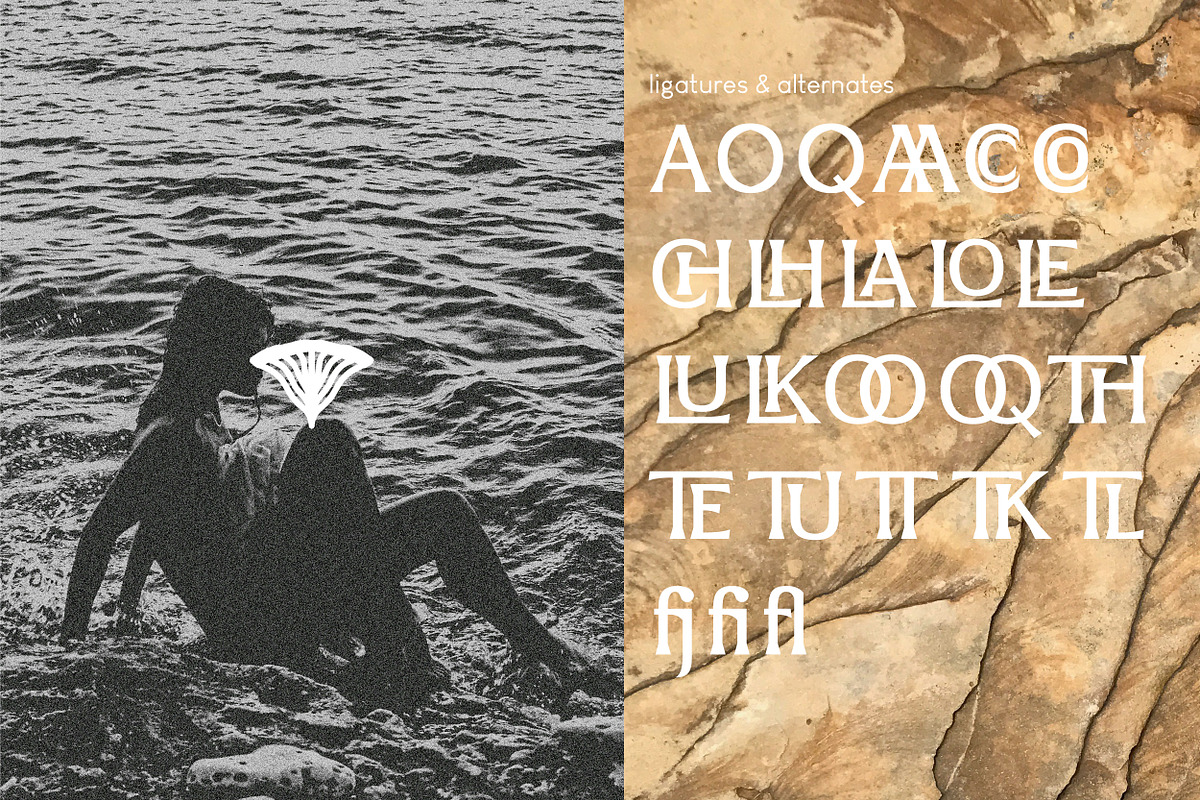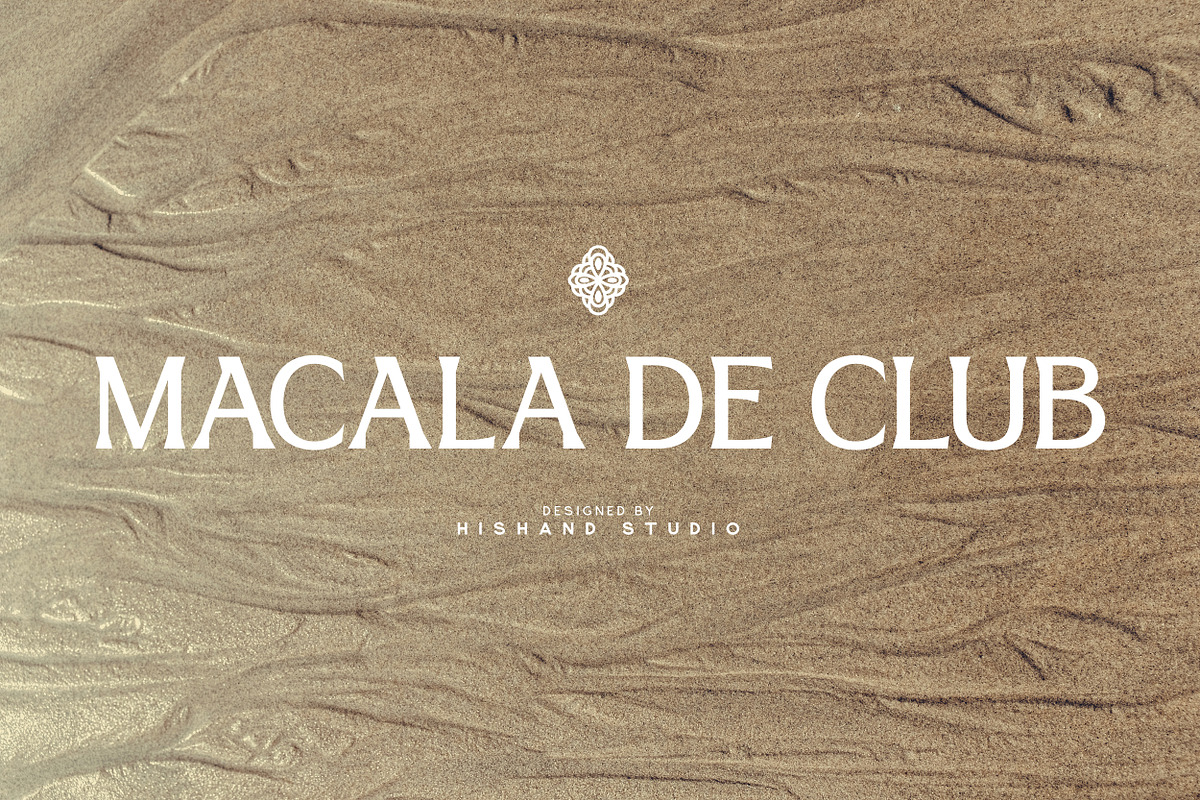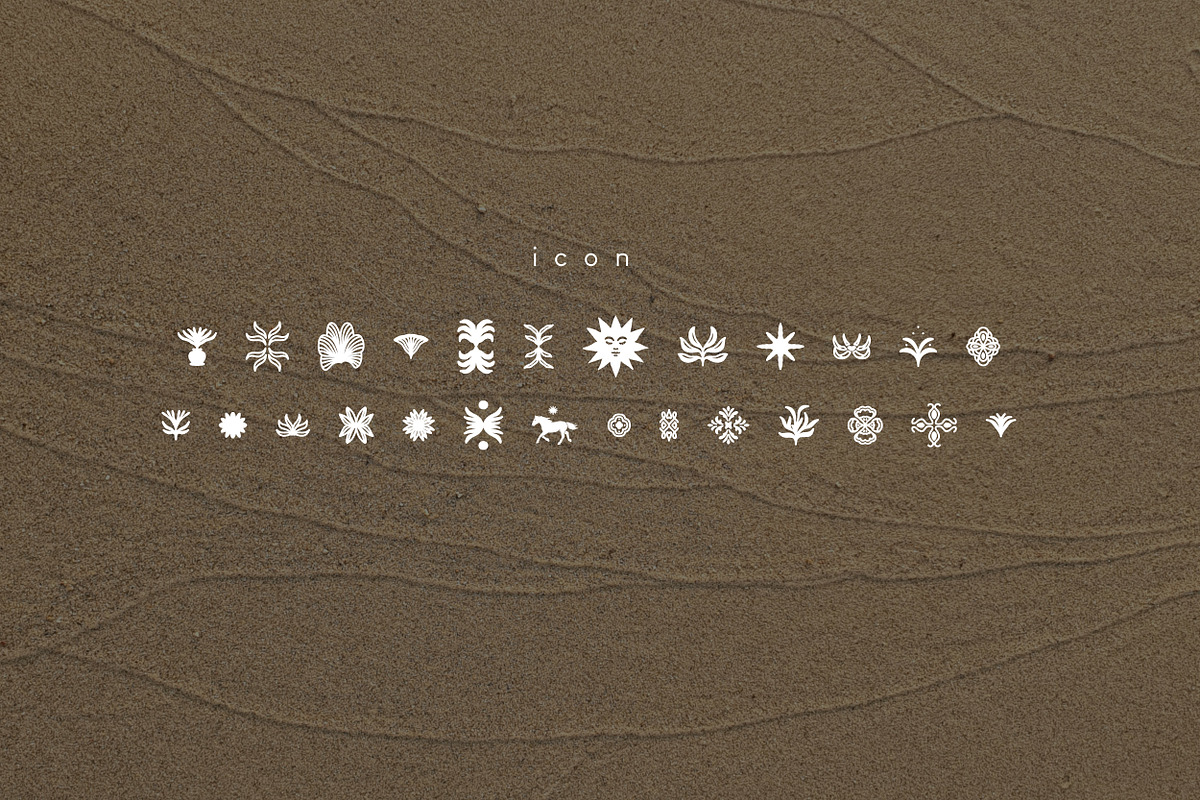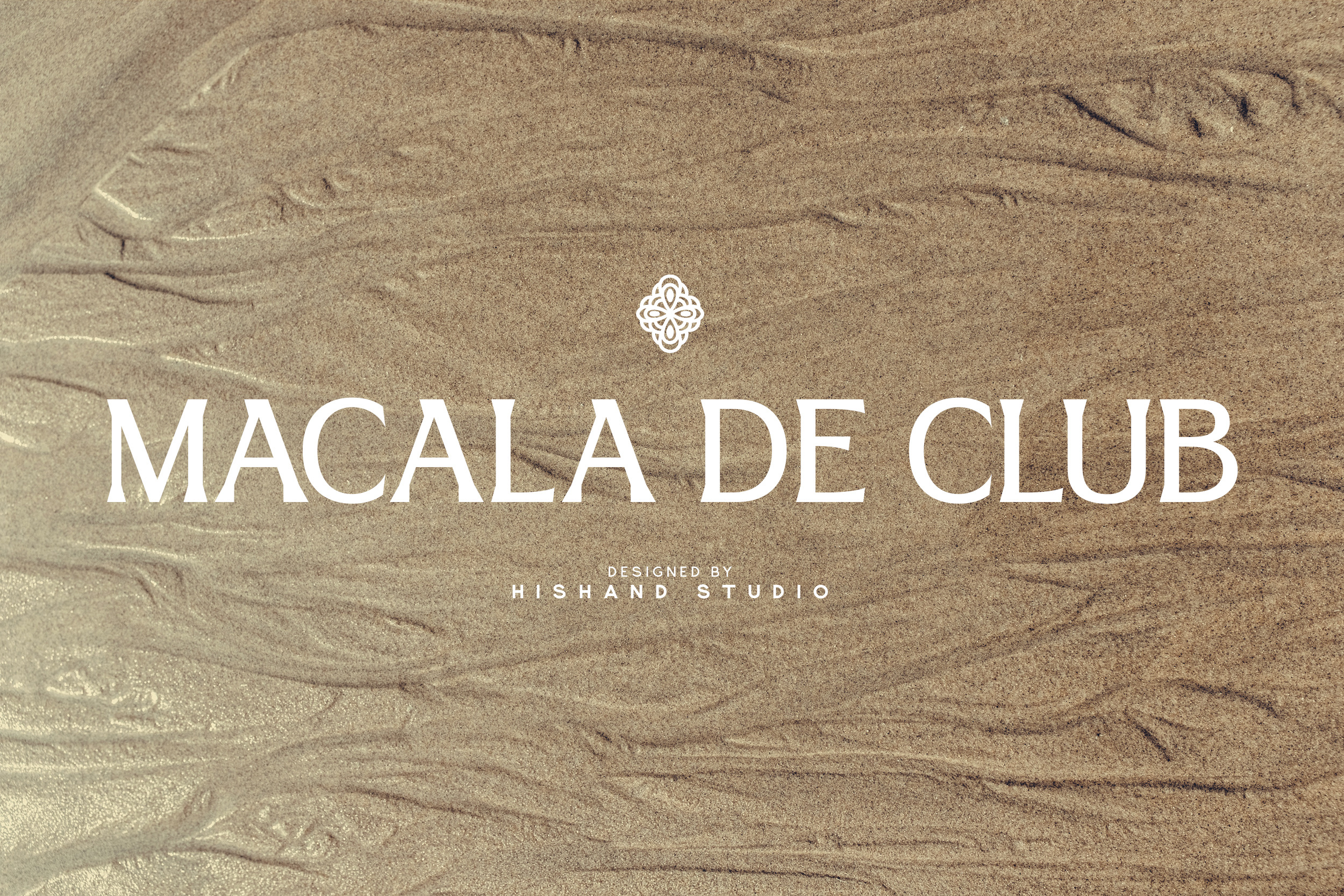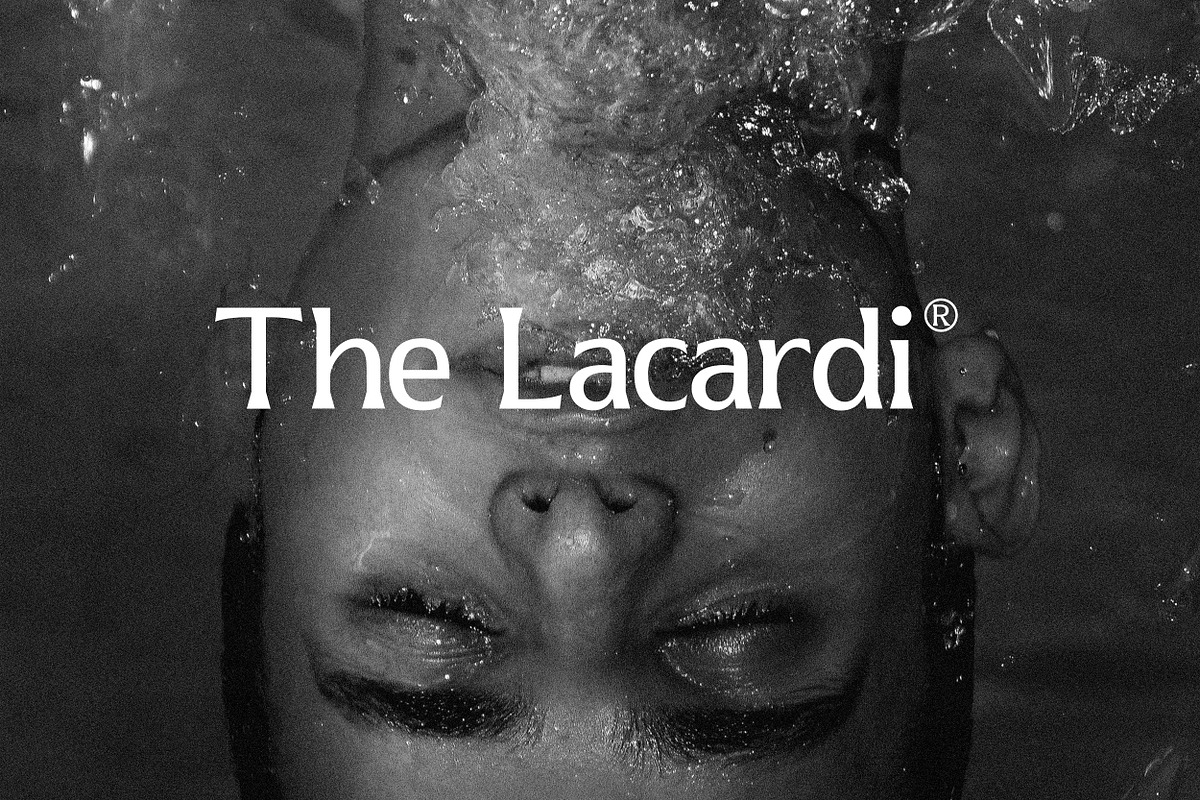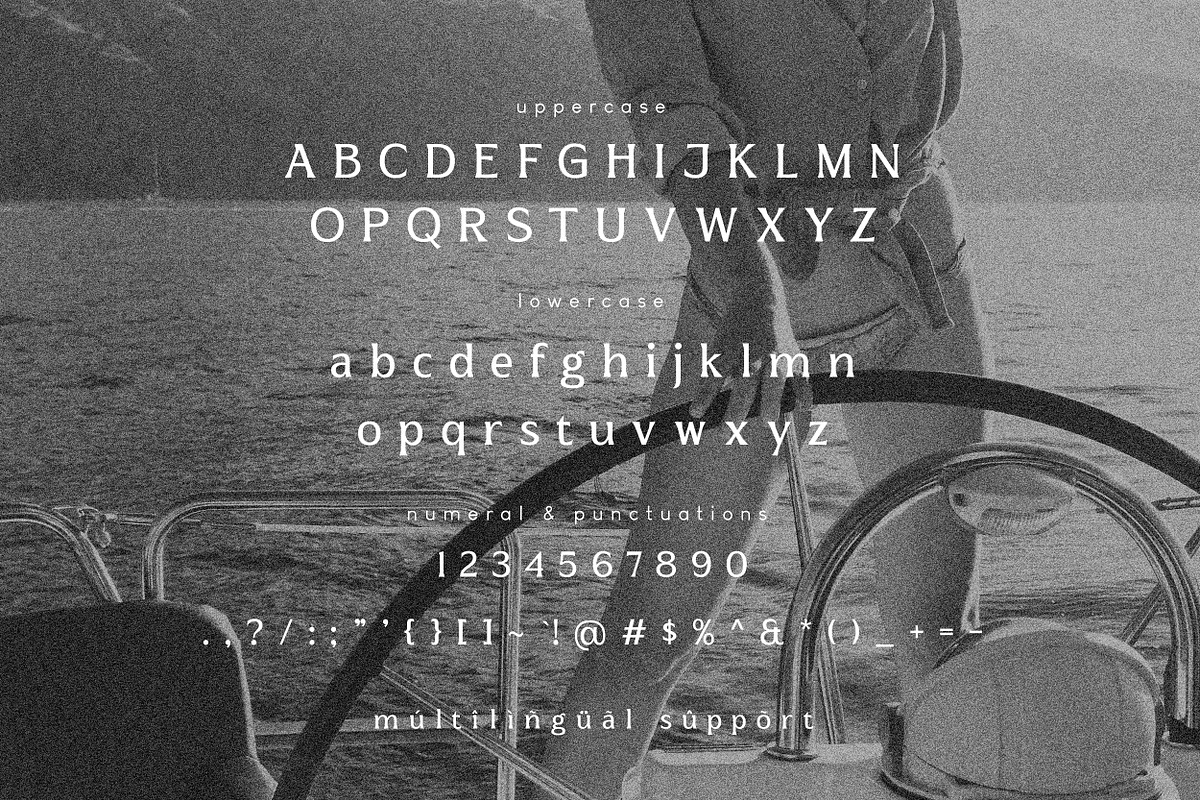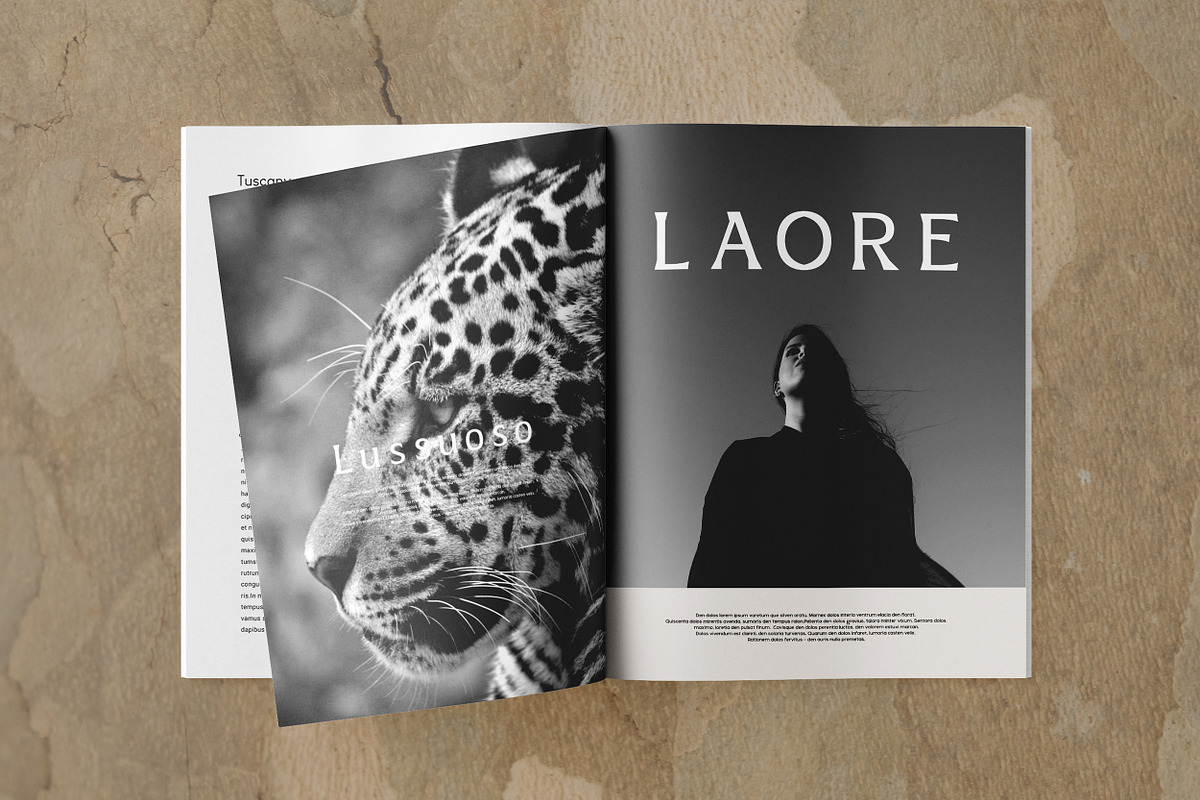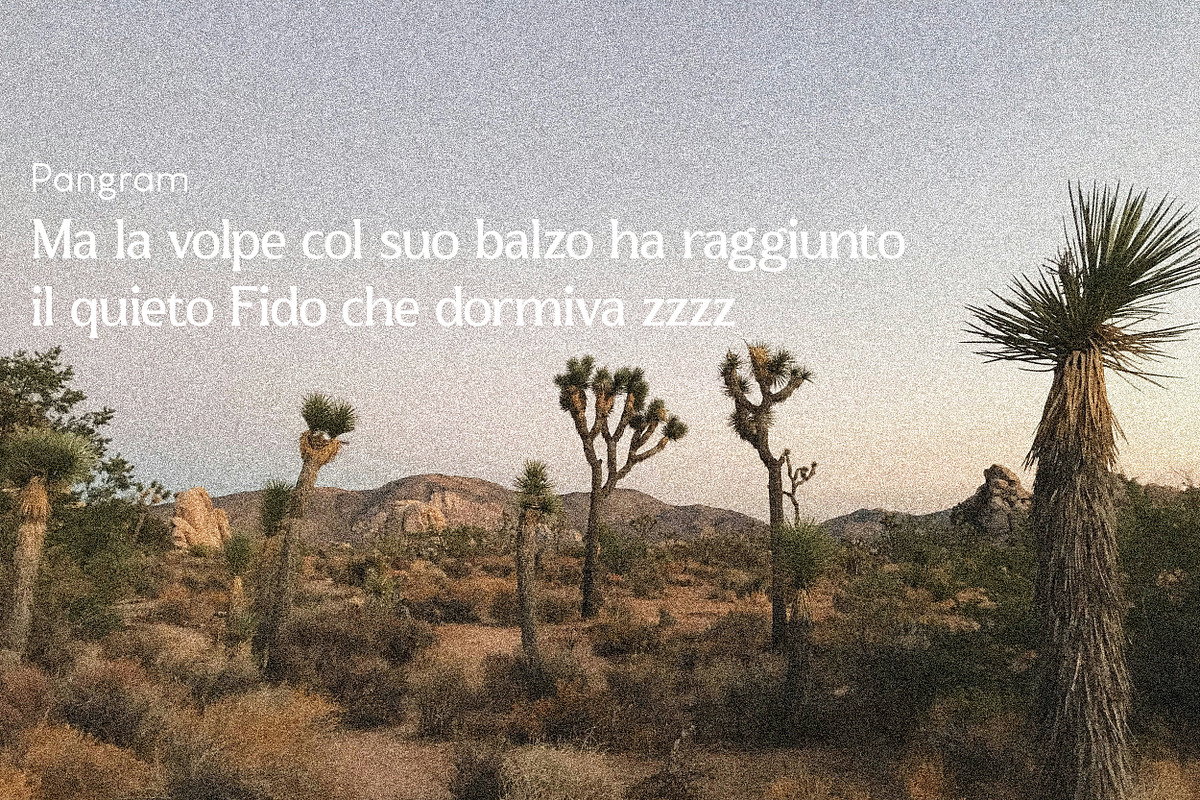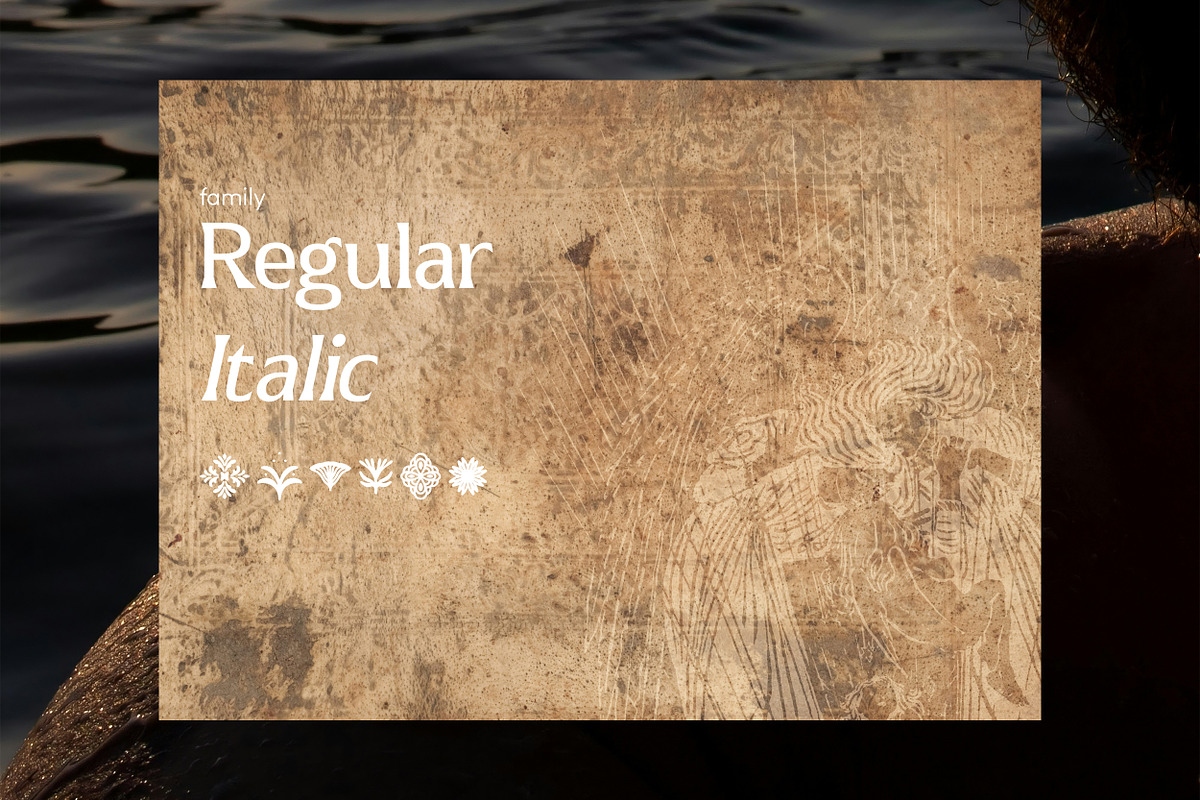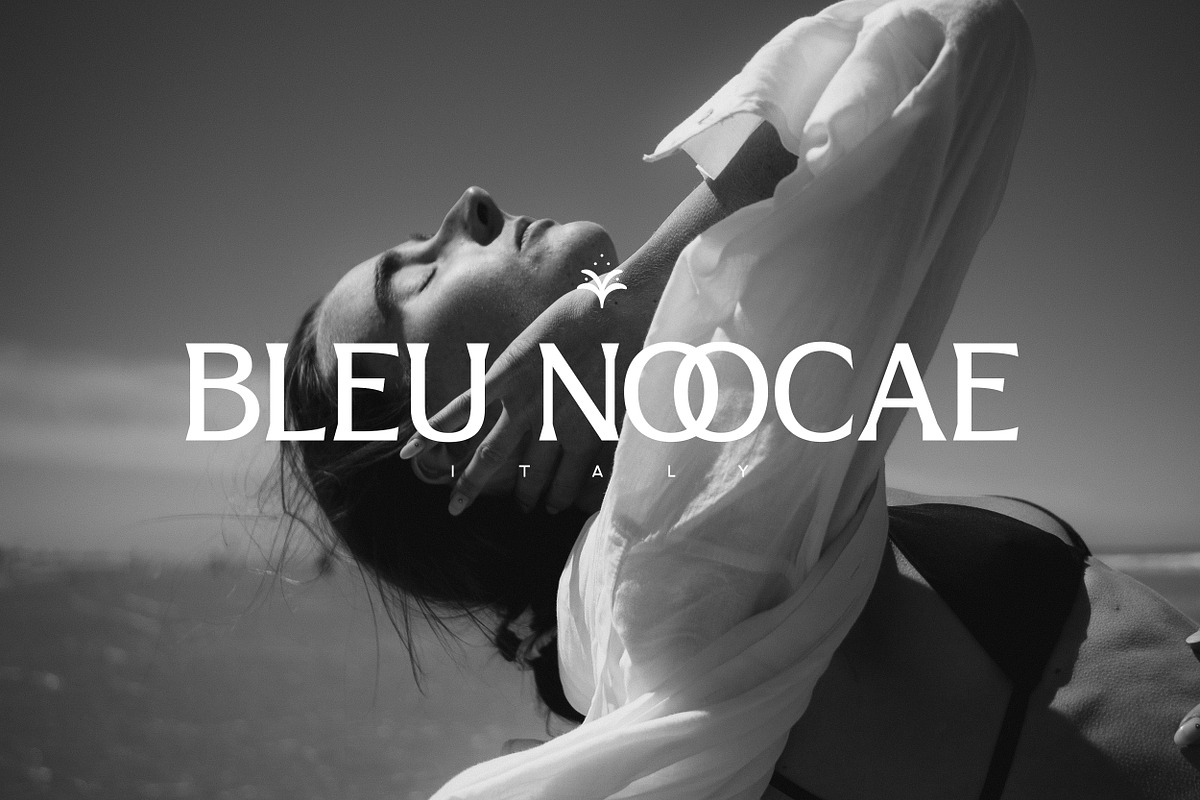
MACALA DE CLUB Serif Font
Macala De Club is a stylish serif font that combines a classic feel with a modern twist. It features elegant, slightly dramatic letterforms that stand out without being too loud. The subtle curves and sharp edges give it personality, making it perfect for logos, editorial layouts, fashion branding, or anything that needs a touch of sophistication. Macala De Club feels refined, artistic, and effortlessly classy great for when you want your words to look as good as they sound. Complete with
- alternates
- regular
- Italic
- icon
- kerning
- multilingual support